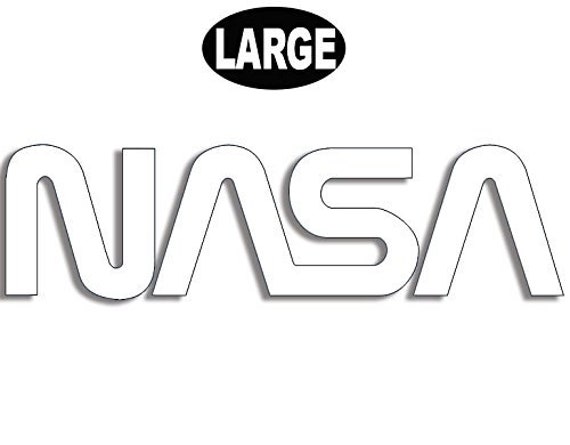
First is featuring the highly legible serif look typeface while other comprises a worm symbol lettering. You can use the OpenType stylistic alternates feature to add a crossbar to the A.
Nasa worm logo font. It was a custom wordmark logo executed in bold sansserif font. NASA worm A fonts. One is the logotype with stylized red curved text also known as the worm and the other is the NASA insignia also known as the meatball featuring a sphere with a red chevron and the NASA lettering over it.
It had rounded edges and cuts. Font called Logos Technology which contains among others a NASA worm logo as a character. NASA worm logotype 19751992 re-instated as a secondary logo in 2020 The National Aeronautics and Space Administration NASA logo has three main official designs although the one with stylized red curved text the worm was retired from official use from May 22 1992 until April 3 2020 when it was reinstated as a secondary logo.
NASAs original logo dates back to 1959 when the National Advisory Committee on Aeronautics NACA changed into an agency that would advance both space and aeronautics. Nasalization is an ultramodern sans serif typeface with a nod to the 1975 Nasa logo. As far as I know this is not approved by NASA or anyone else but does look very close to what the logo.
NASAs worm logo was born of a meticulously detailed manual that remains a great example of a graphics system. The NASA logo has two main designs. You can find the cuts on its double lettersA where their vertical bars had been erased.
The worm is back. Officially there are two main fonts texture we can see in the logo for the NASA. Katyanna Quach Fri 3 Apr 2020 0050 UTC Poll NASA has brought back its sleek iconic logo lovingly named the worm for its curvy red font in time for its first crewed spaceflight using American rockets in almost a decade.
This version utilizes a. The red logo dubbed the worm by space aficionados for its smoothly rounded font was discontinued in the 1990s and replaced by the now more well-known meatball. The retro modern design of the agencys logo will help capture the excitement of a new modern era of human spaceflight on the side of the Falcon 9 launch vehicle that will ferry astronauts to the International.
Meatball and Bambi are these two fonts respectively. Similarly The lettering for the worm logotype is very similar to a font referred to as Nasalization and the lettering for the meatball textual content is similar to a font called Bambi. As far as I know this is not approved by NASA or anyone else but does look very close to.
Nasalization is available in 6 weights and italics.